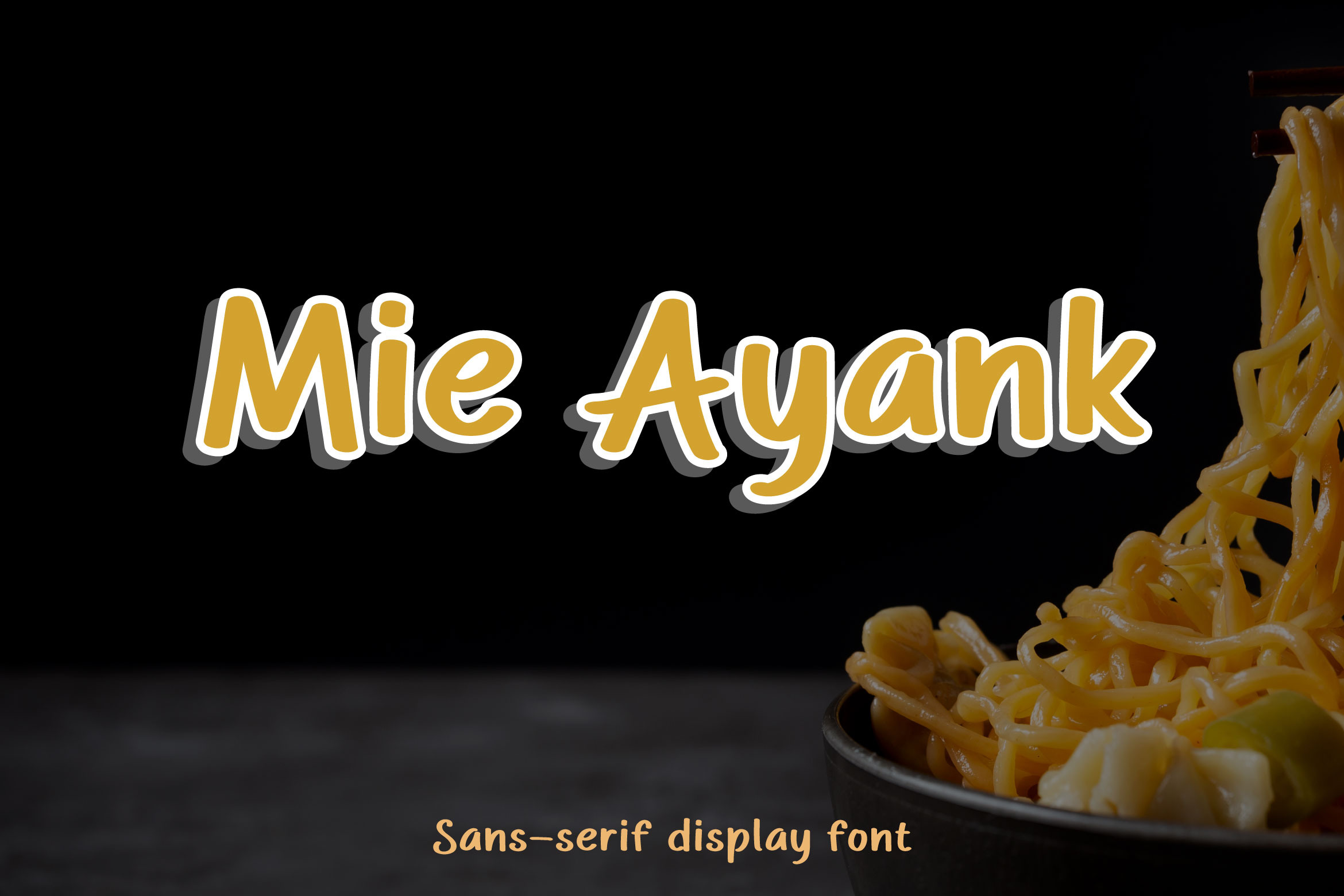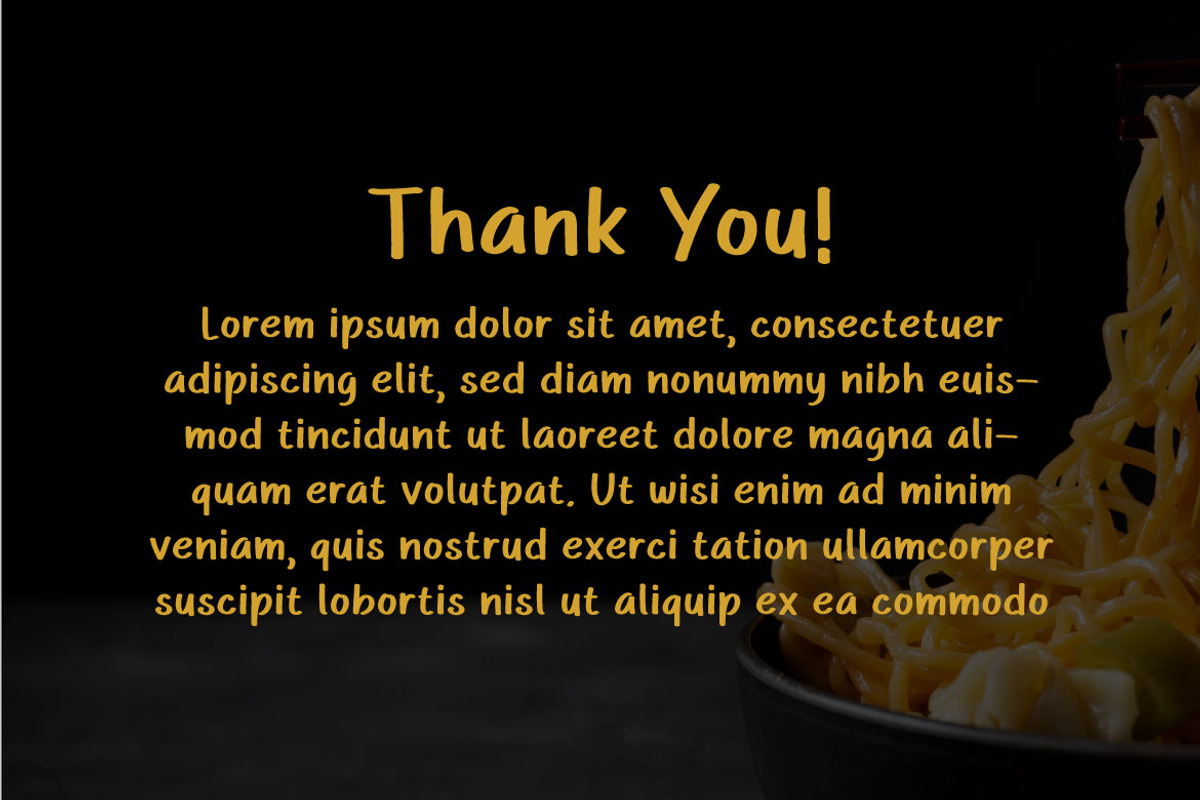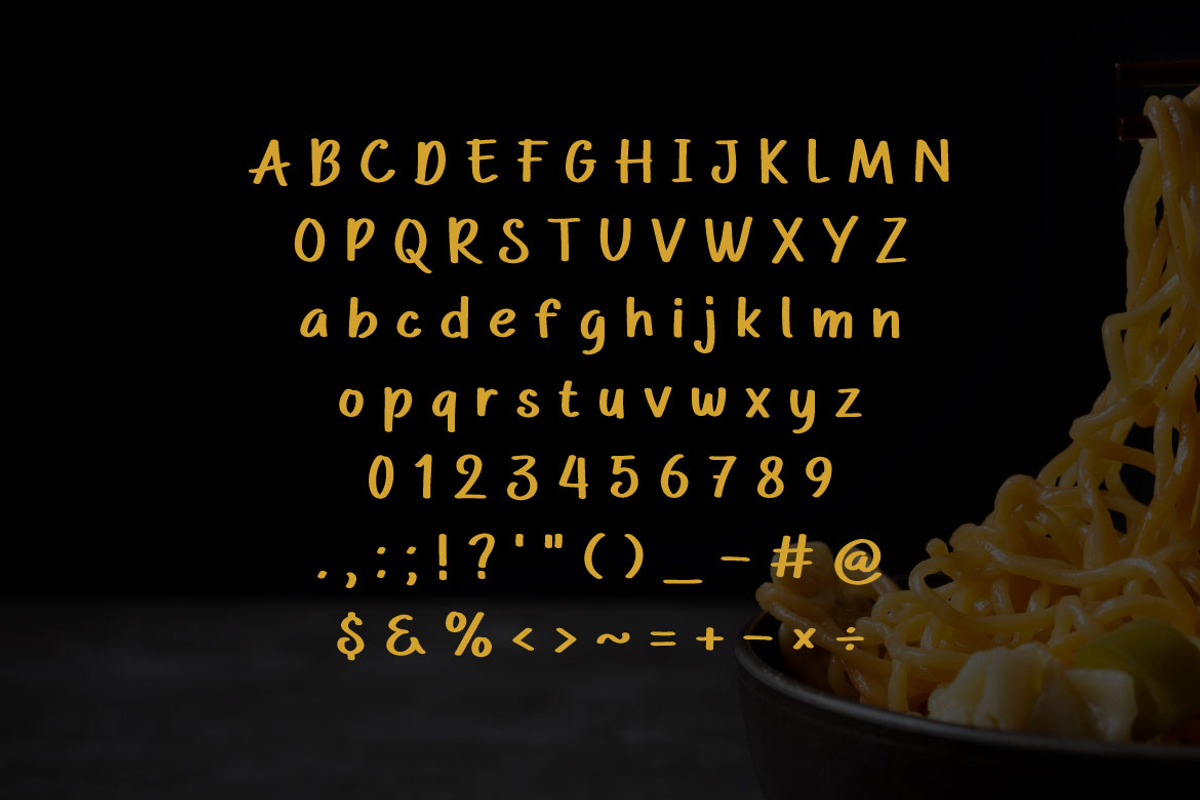
Mie Ayank - Modern Display Font
MIE AYANK is a sans serif font. This font has modern looks. Mie Ayank can be used in any works such as book title, youtube cover, advertisement, banner, logo, and many more.